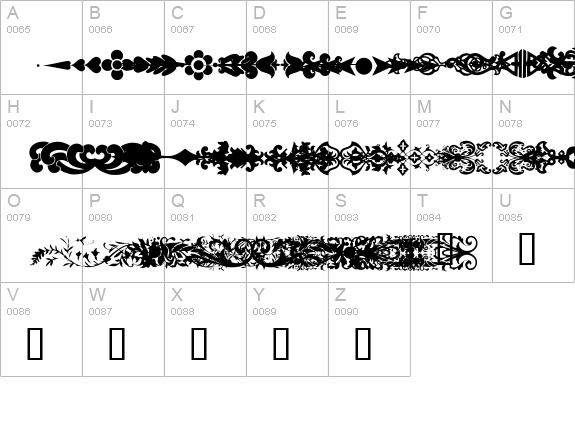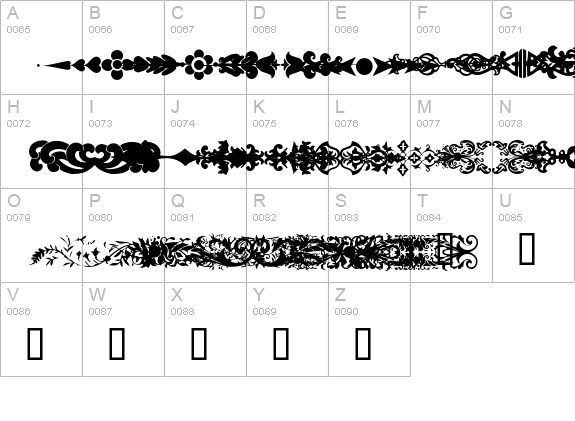
Introducing DecoDividers, a stunning and versatile font that adds a touch of elegance and sophistication to any design project. This unique typeface features intricate details and ornate elements inspired by art deco styling. DecoDividers is perfect for creating eye-catching headers, titles, and decorative elements that will make your designs stand out. What's even better is that DecoDividers is available for free download at FontsMarket.com. This means you can easily access this gorgeous font and incorporate it into your projects without any additional cost. Whether you're working on invitations, posters, logos, or any other creative endeavor, DecoDividers will add a touch of charm and style that is sure to impress. Download DecoDividers today and elevate your designs to the next level!